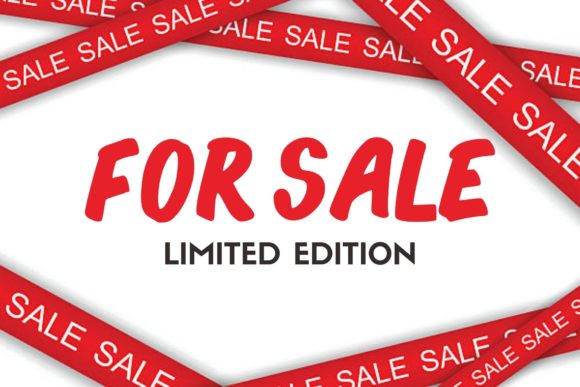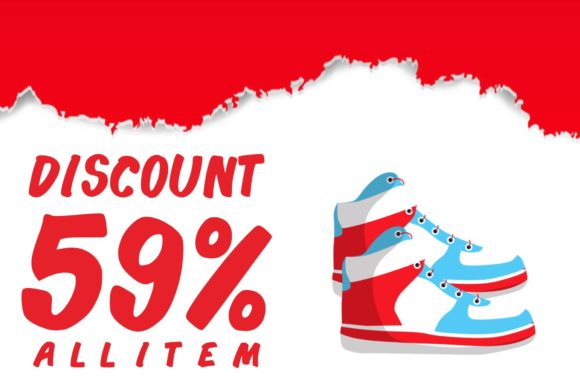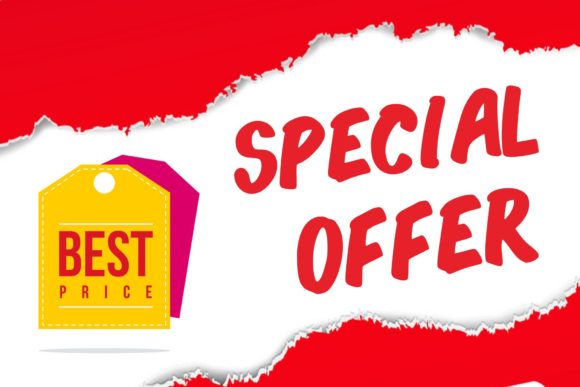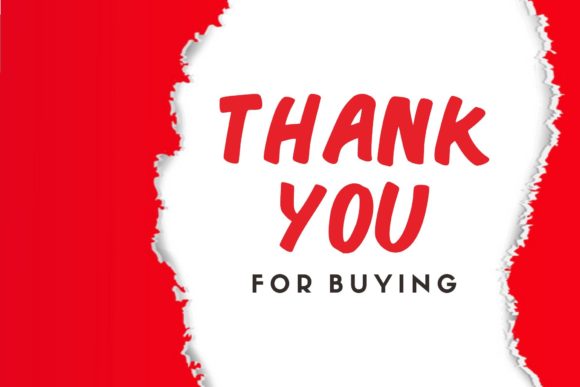
Introduction to Rushbad Font
Have you ever been in the midst of a creative project, pouring your heart and soul into a design, only to realize that the perfect font is missing? That’s where the Rushbad Font comes in – a game-changing, high-quality display font that will elevate your work to the next level.
With its bold, all-caps design, Rushbad Font is the perfect addition to any creative project, whether you’re crafting, designing digitally, creating presentations, or making greeting cards. This versatile font is available as a free download, making it an invaluable design resource for designers of all levels.
Whether you’re a seasoned pro or just starting out, the Rushbad Font is a valuable asset that will add a touch of sophistication and style to your work. With its transparent background, this font is easy to layer and manipulate, making it a joy to work with.
Key Features of Rushbad Font
- High-quality design for creative projects: Rushbad Font is a versatile font ideal for various design applications, including logos, branding, and digital art.
- Transparent background: This feature allows for seamless integration with any design element, making it perfect for creative projects.
- Unique characteristics: Rushbad Font features a unique blend of modern and vintage elements, making it perfect for designers looking for a distinctive look.
- High-resolution design: Rushbad Font is designed at a high resolution (300 DPI), ensuring it looks great in various sizes and applications.
- Perfect for digital art: Rushbad Font is ideal for digital art, graphics, and creative projects, making it a valuable design resource.
Honest Review: Rushbad Font
I recently stumbled upon the Rushbad Font, and I’m excited to share my honest thoughts with fellow designers. This high-quality font is a great addition to any creative project, offering a unique and stylish look.
One of the standout features of the Rushbad Font is its transparent background, making it easy to use in various design scenarios. The font is also available for free download, which is a huge plus for designers on a budget.
- What works well: ✨ Unique design style, ✨ High-quality font files, ✨ Easy to use with a transparent background
However, there are a few limitations to consider. The font may not be suitable for projects that require a more formal or traditional look. Additionally, the font family is relatively small, which may limit its versatility.
- Limitations: ⚠️ Not suitable for formal projects, ⚠️ Limited font family
Overall, I’m impressed with the Rushbad Font, and I think it’s a great resource for designers working on creative projects. Its unique design style and high-quality font files make it a valuable addition to any design library.
Rushbad Font
Tips for Getting the Most Out of Rushbad Font
To get the most out of Rushbad Font, use it in combination with other design resources, such as images and graphics. Experiment with different font sizes, styles, and colors to create a unique and eye-catching design.
The Rushbad Font is ideal for use in creative projects, such as brochures, posters, and social media graphics. It’s also great for use in presentations, reports, and other business documents.